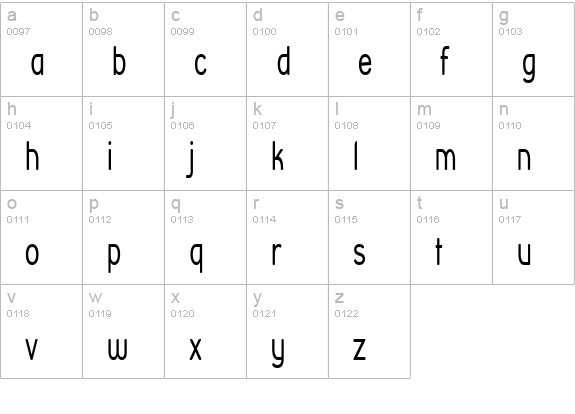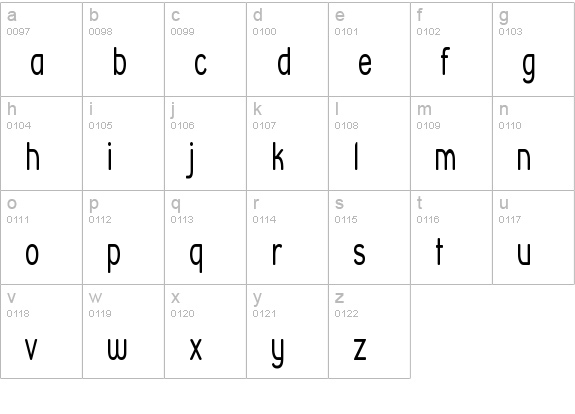
Street Corner Narrow is a distinctive, condensed-width variant in the Street typeface family \xE2\x80\x94 well suited to design and typography projects.
Street Corner Narrow font is a sleek and modern typeface designed for capturing attention and making a statement. With its clean lines and sharp angles, this font exudes a sense of sophistication and style. Perfect for use in headings, logos, and branding materials, Street Corner Narrow adds a touch of elegance to any design project. This versatile font is available for free download at FontsMarket.com, making it accessible to designers and creatives looking to elevate their work without breaking the bank. Whether you're working on a website, print materials, or any other design project, Street Corner Narrow is sure to make a lasting impression. Download this font today and take your designs to the next level!